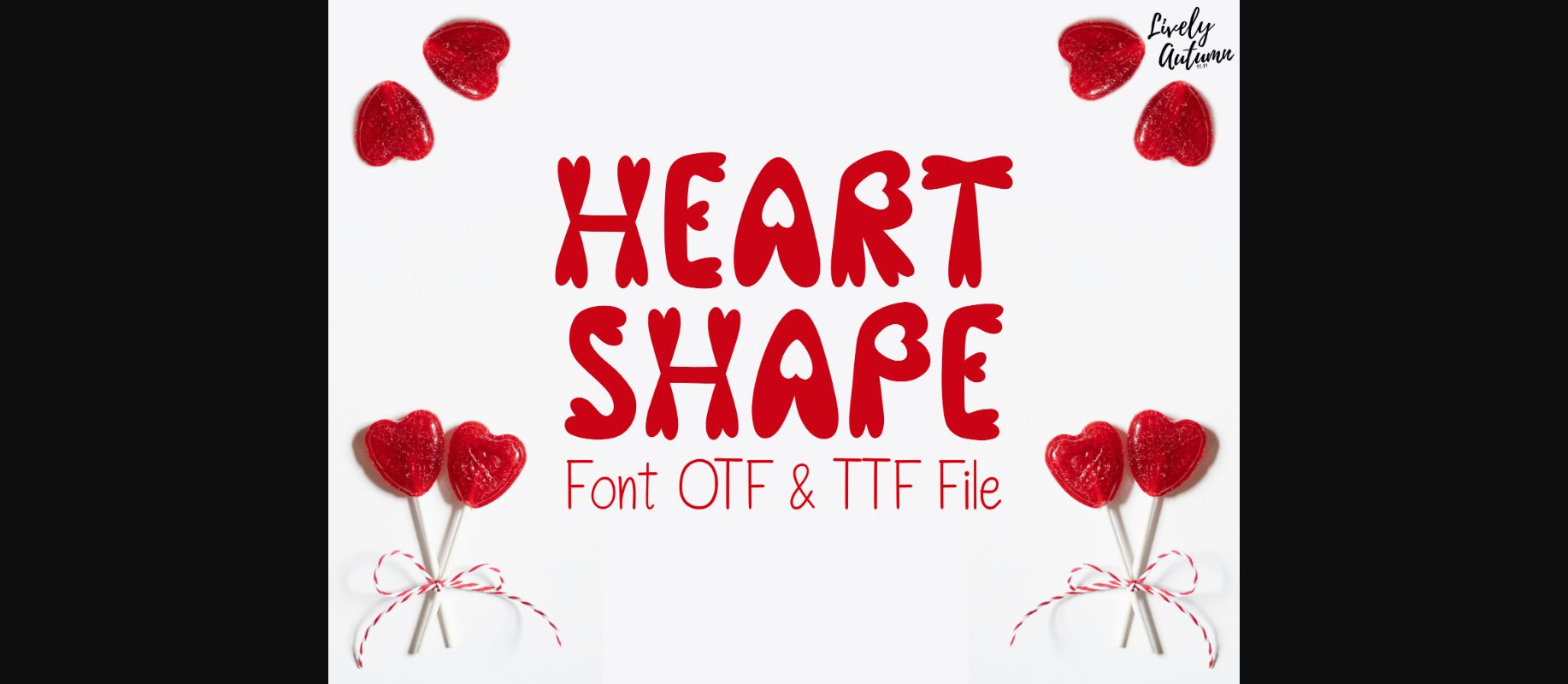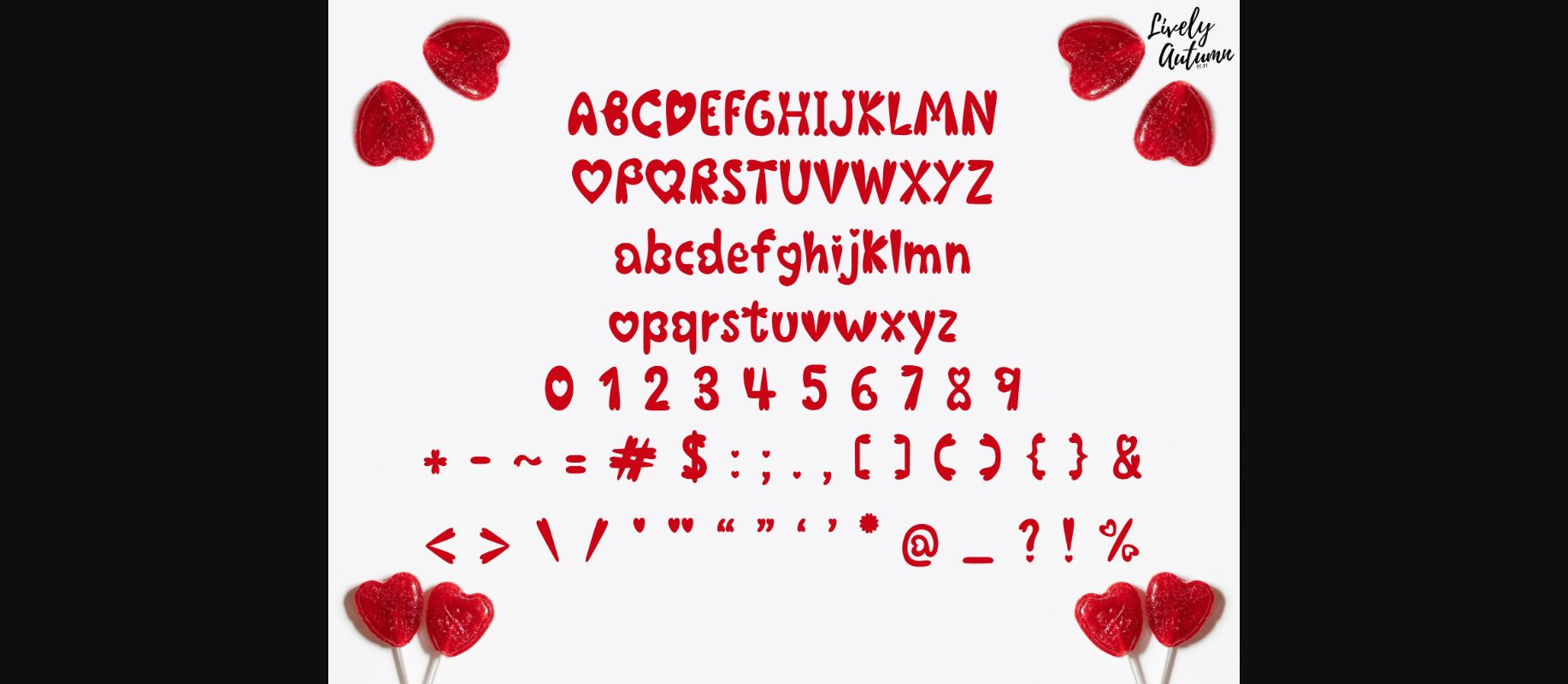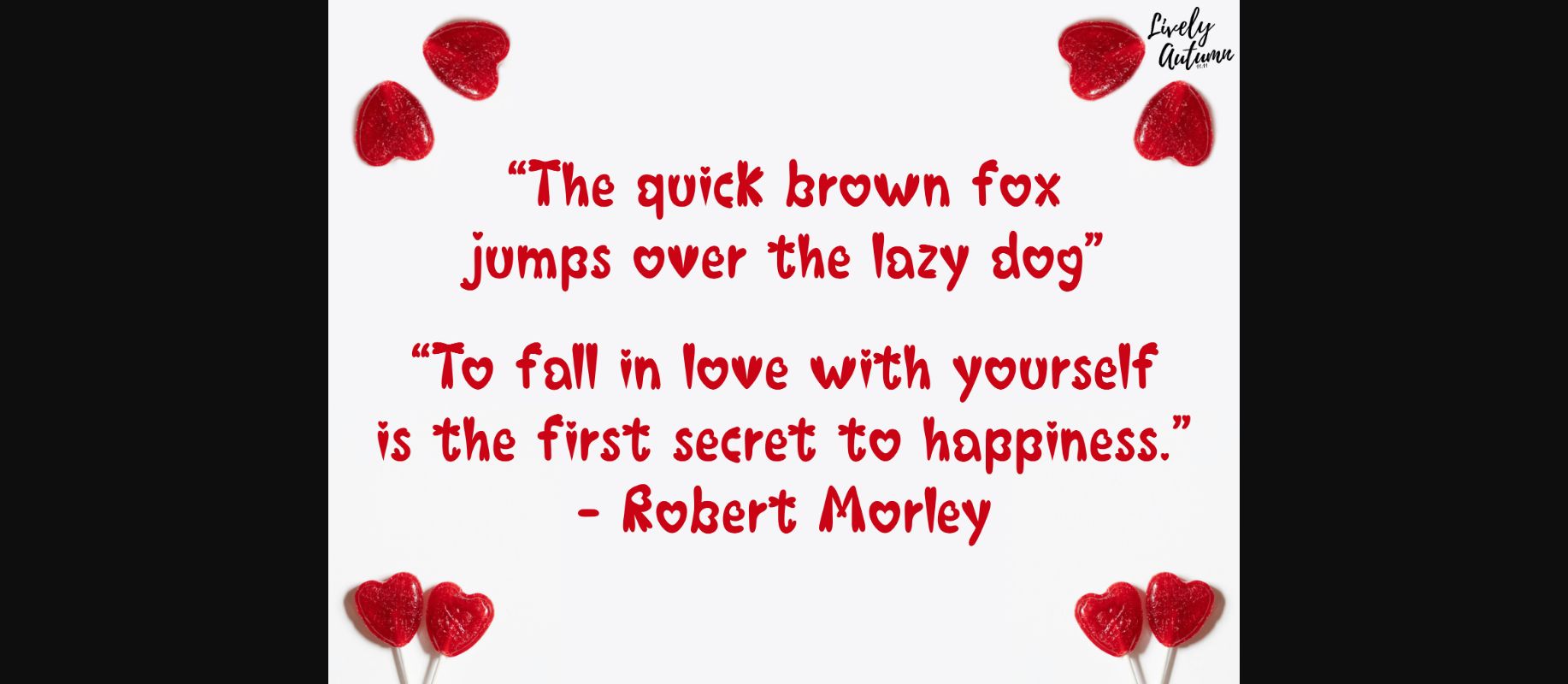
HomeDecorative FontsHeart Shape Font Decorative Fonts Heart Shape Font FacebookXPinterestWhatsApp 1 of 5 ... Heart Shape Font Poster 2... Heart Shape Font Poster 3... Heart Shape Font Poster 4... Heart Shape Font Poster 5... About Heart Shape Font is a fancy decorative font. This typeface is a mixing of letters and heart shapes. Perfect for your Valentine’s Day cards, romantic invitations, heartfelt messages, and much more. DOWNLOAD NOW People also explored Morning Flower Duo Font Anghista Font Space Boards Font The King Kumudei Font Prestiquen Script Font Entourage Chicken Yummy Font Toonpin Font Octavian Signature Font 370 0 TagsHeart Shape Font Previous articleTulip Flower Monogram FontNext articleChalk Love Font LEAVE A REPLY Cancel reply Comment: Please enter your comment! Name:* Please enter your name here Email:* You have entered an incorrect email address! Please enter your email address here Website: Save my name, email, and website in this browser for the next time I comment. Personal Use Free Consequences Personal Use Free Read more about this font Heartburn Personal Use Free Read more about this font Hearted Personal Use Free Read more about this font Callisa Script Personal Use Free Read more about this font BLOG How to Install and Use Fonts on Windows, macOS, and Web Projects How to Install and Use Fonts on Windows, macOS, and Web Projects Fonts are a crucial part of design and branding. Whether you’re designing a... To increase your work productivity, choose the most readable fonts. Using Fonts in Digital Marketing: Tips to Strengthen Your Brand Identity Top 7 Google Fonts Alternatives for Faster and Privacy-Friendly Web Design (2025)